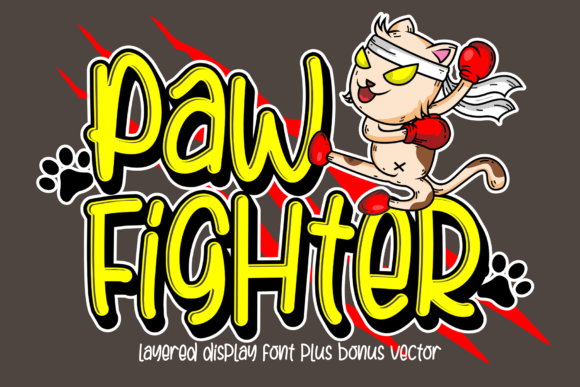
Unleash the wild spirit of your designs with Paw Fighter Font, a creation of Figuree Studio, a font foundry known for its captivating and dynamic typefaces. Paw Fighter isn't just a font; it's an untamed force of energy, ready to ignite your creativity and leave a lasting impact on your audience.
With its untamed strokes and playful spirit, Paw Fighter takes inspiration from the untamed wilderness, bringing a raw and energetic vibe to your projects. Its unrestrained energy dances across each letterform, evoking a sense of adventure and untamed freedom.
Whether you're crafting logos that demand attention, creating eye-catching posters that ignite imaginations, or designing social media graphics that leap off the screen, Paw Fighter is your weapon of choice. Its dynamic character adds a touch of wild charm to any project, transforming ordinary into extraordinary, stillness into motion.
But Paw Fighter isn't just about aesthetics; it's also incredibly versatile. Its bold presence shines in headlines, while its playful nature makes it perfect for subheads and short texts. Its ability to adapt to different design styles makes it a valuable asset for any creative arsenal.